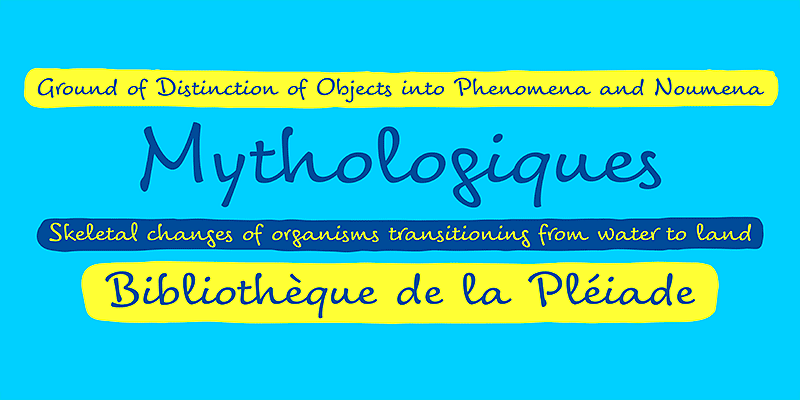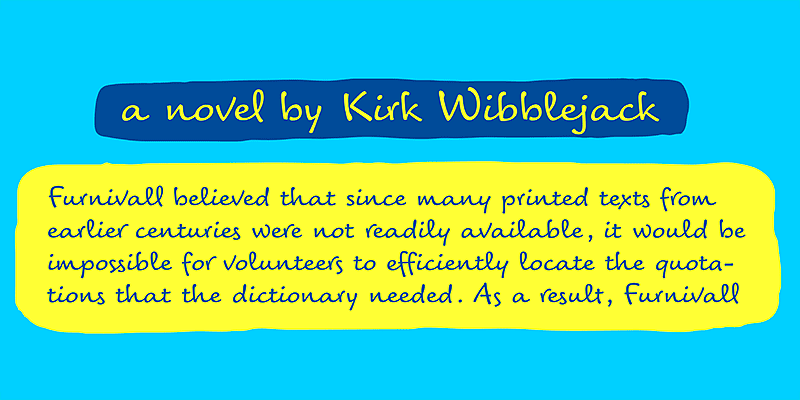
Tornac is a spontaneous calligraphic font with a pleasing, rhythmic flow, underscored by the controlled movements of a skilled calligrapher. Its wide proportions lend an air of elegance.